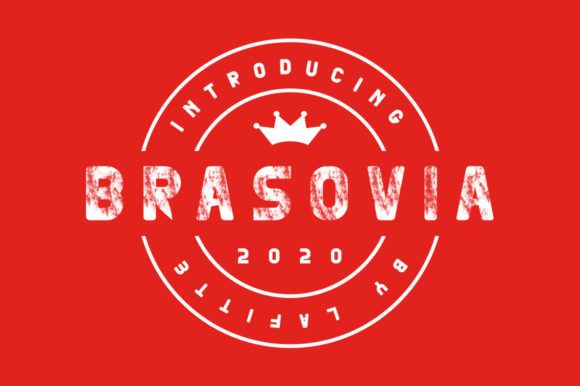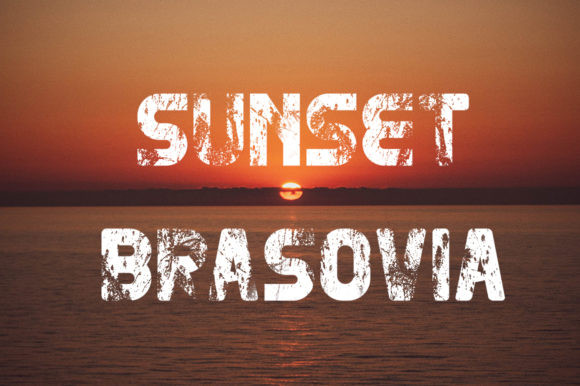
Brasovia Font
Brasovia is a fun, bold and vintage styled display font. No matter the topic, this font will be an incredibly asset to your fonts’ library, as it has the potential to elevate any creation.